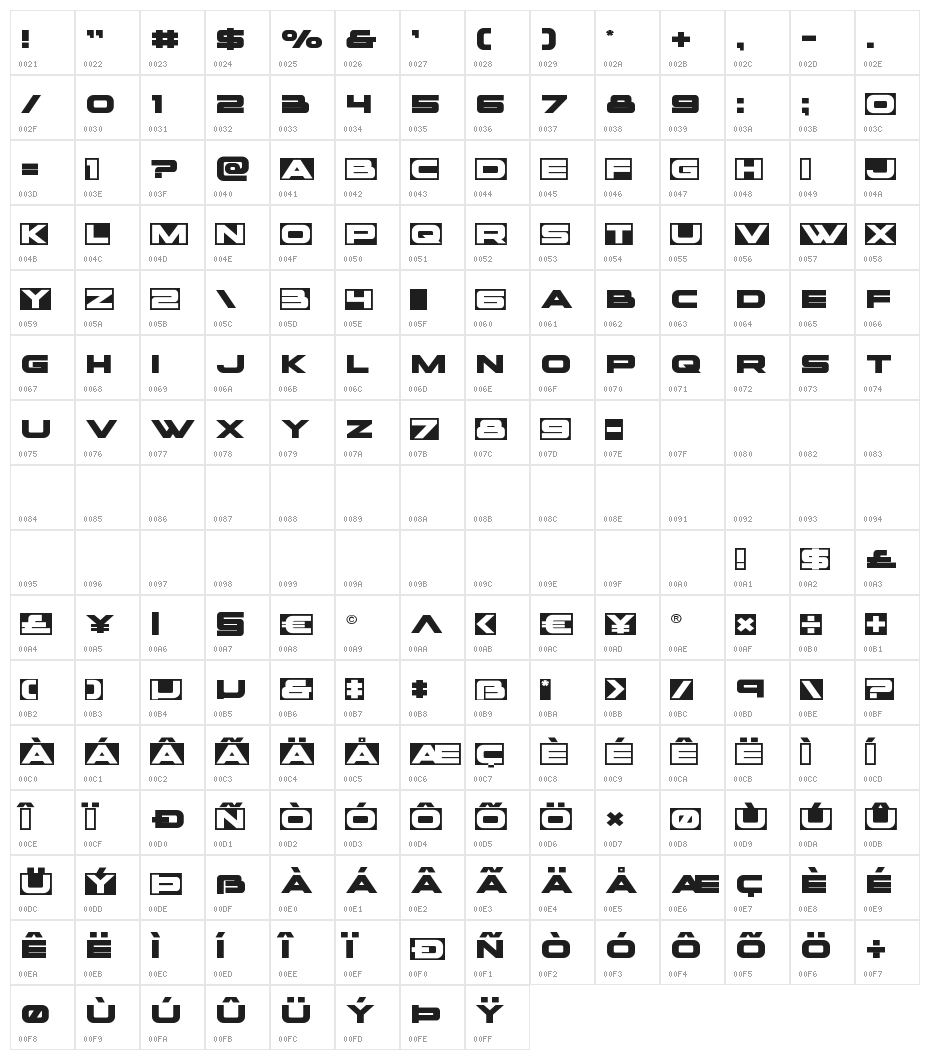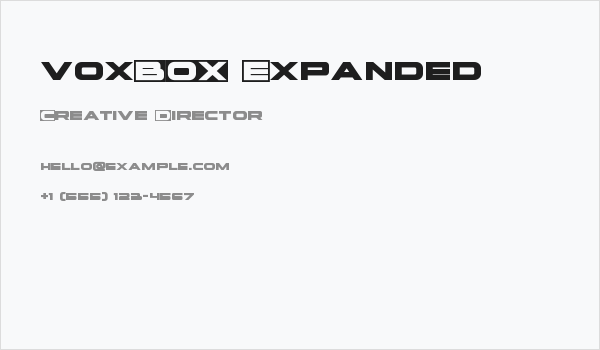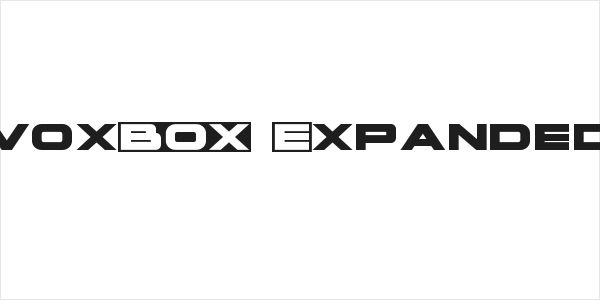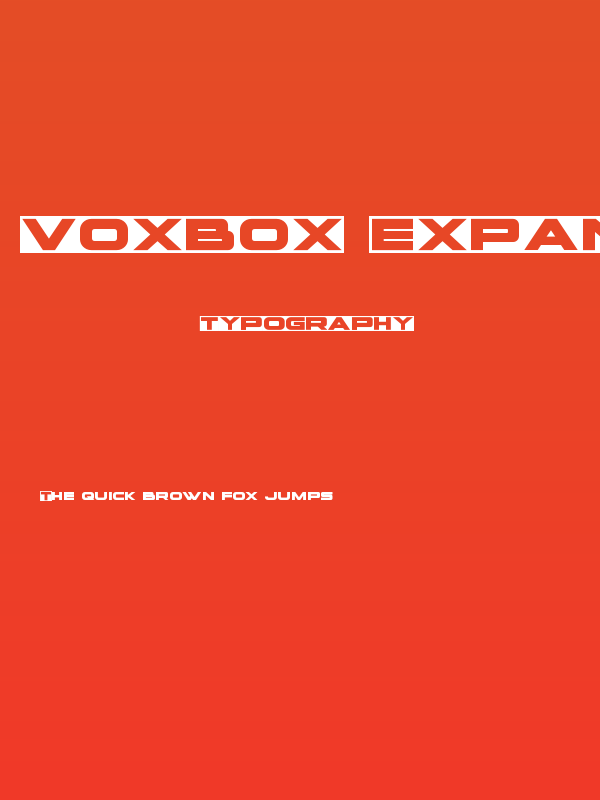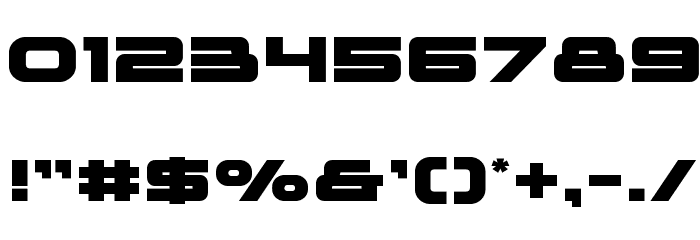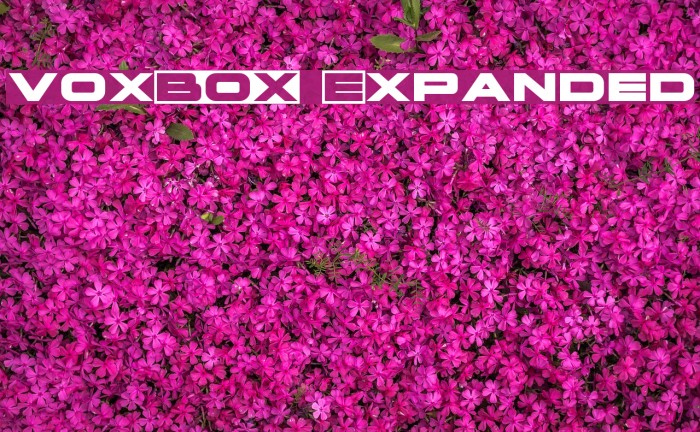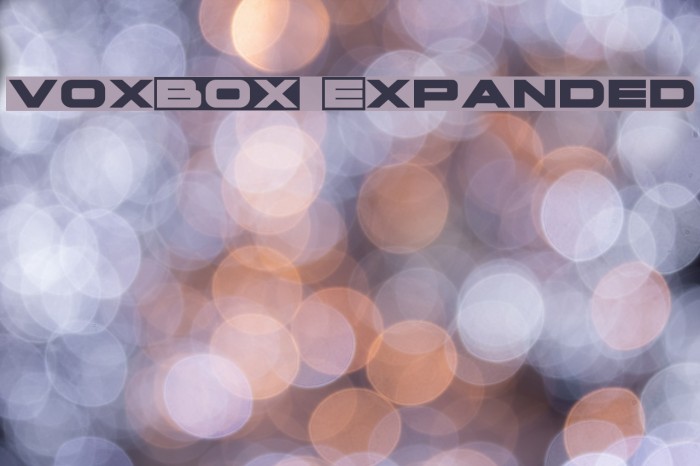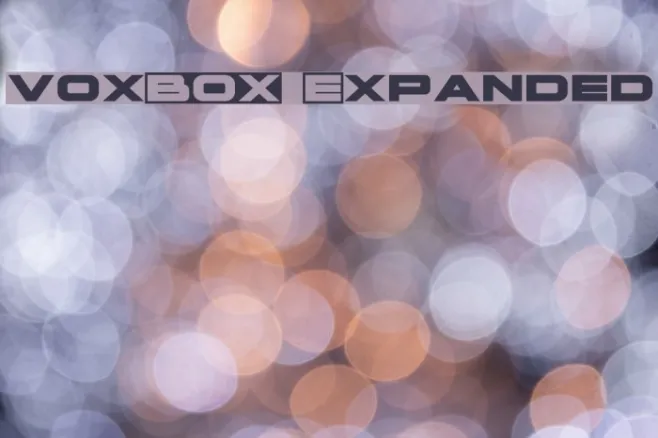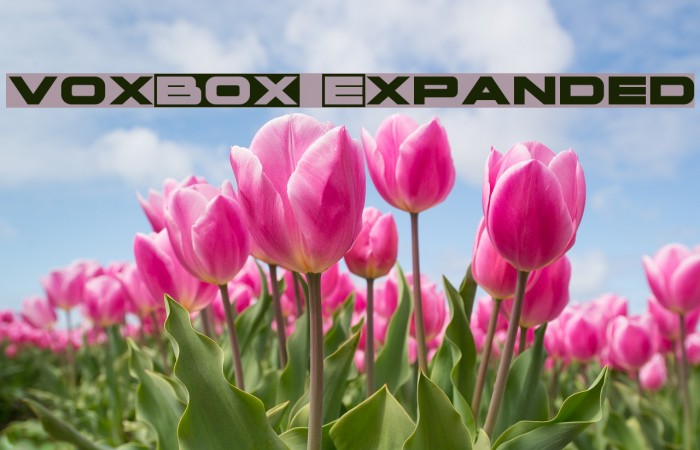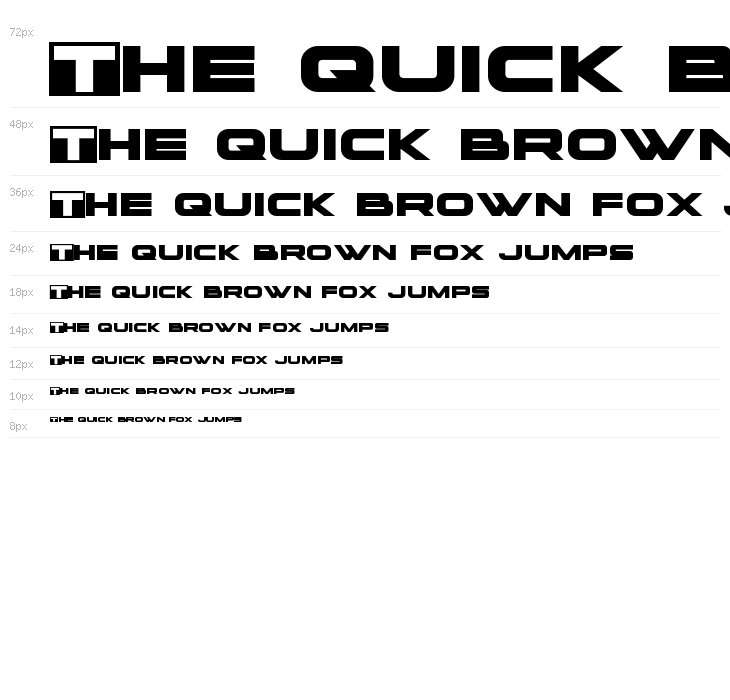
voxBOX Expanded Font
voxBOX Expanded Description
This font features a bold and modern design with a strong geometric influence. The characters are wide and expanded, giving them a commanding presence. The uppercase letters are particularly striking, with sharp angles and a consistent stroke width that conveys a sense of stability and strength. The numerals and special characters maintain this bold aesthetic, ensuring consistency across all text elements. The font's design is clean and uncluttered, making it highly legible even at smaller sizes. Its contemporary style is suitable for a variety of applications, from digital media to print.
| Proposed Projects | Ideal for branding, headlines, posters, and digital media where a strong, modern presence is desired. |